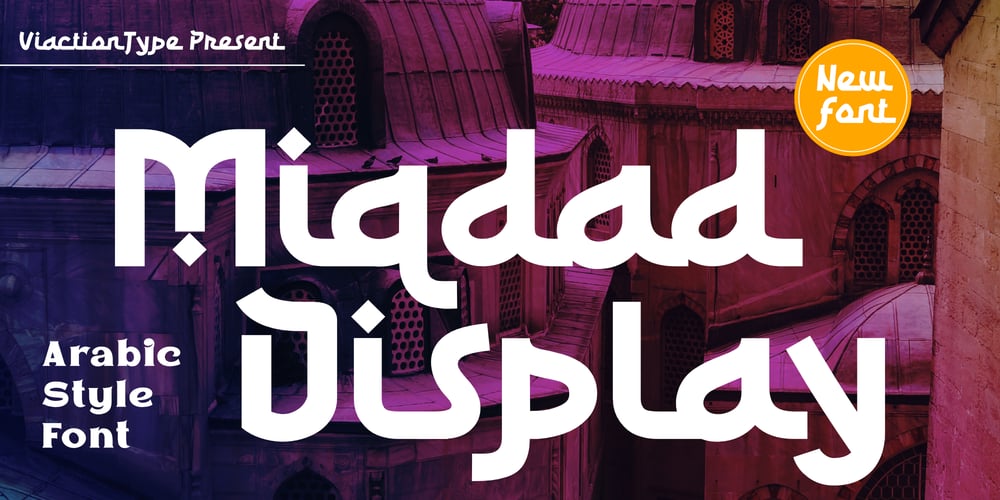
Miqdad
Miqdad font
Miqdad Font Family was designed by Lukman Hidayat and published by Viaction Type.Co. Miqdad contains 2 styles and family package options. Miqdad font is inspired by Arabic letters which have bold characters. It is perfect for use as logos, quotes, and various other designs with Islamic or Arabic themes. Equipped with multilingual. Font files include:This font includes 2 styles, regular & oblique. It is very profitable to buy the Miqdad font. Get it Now !Thanks.